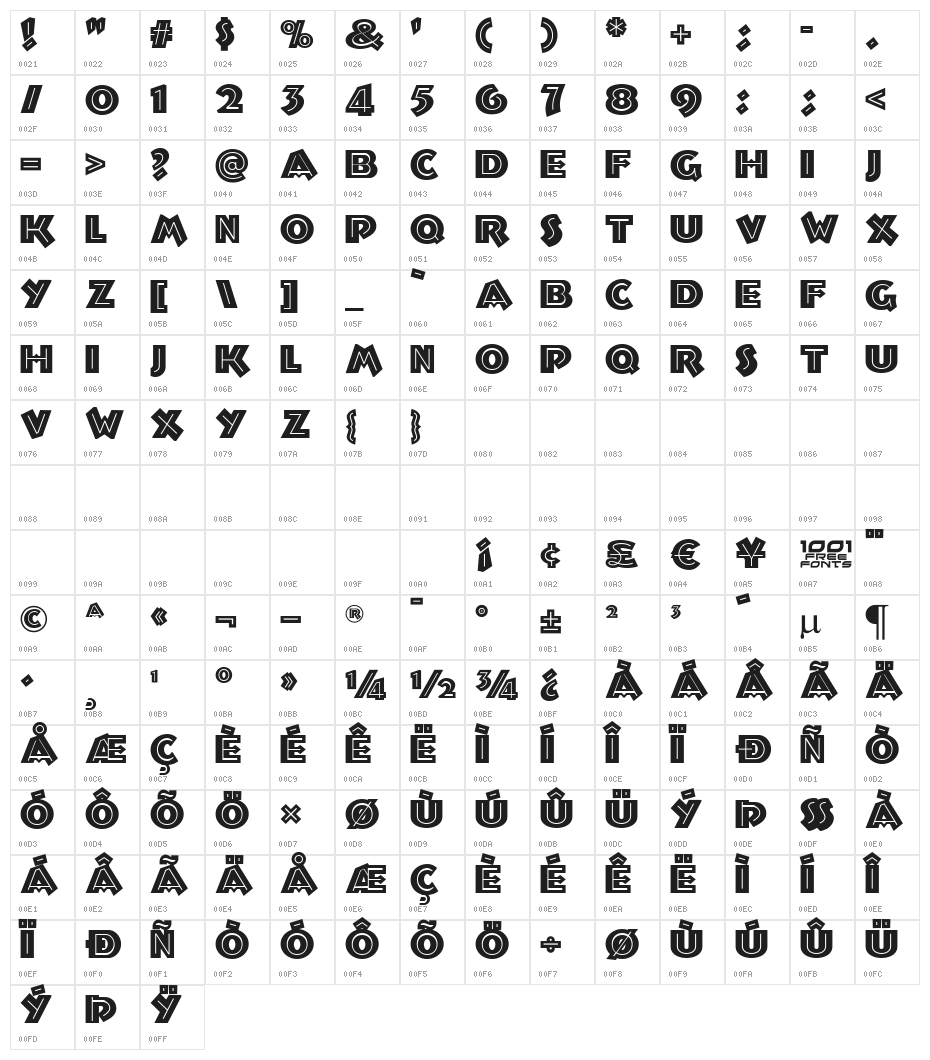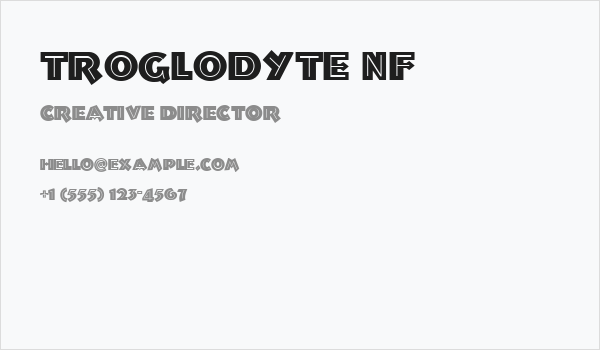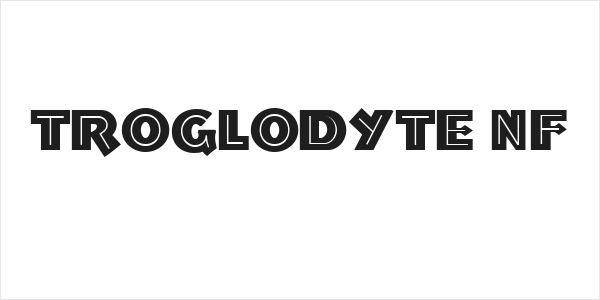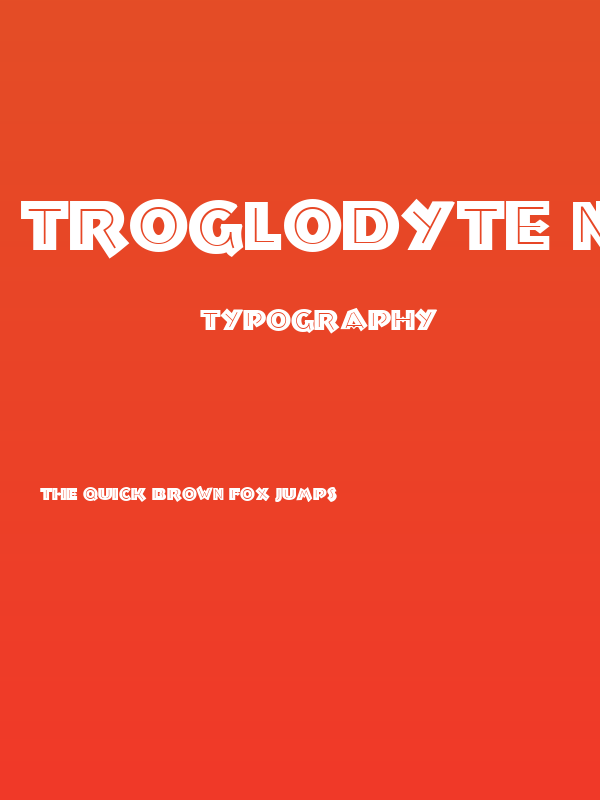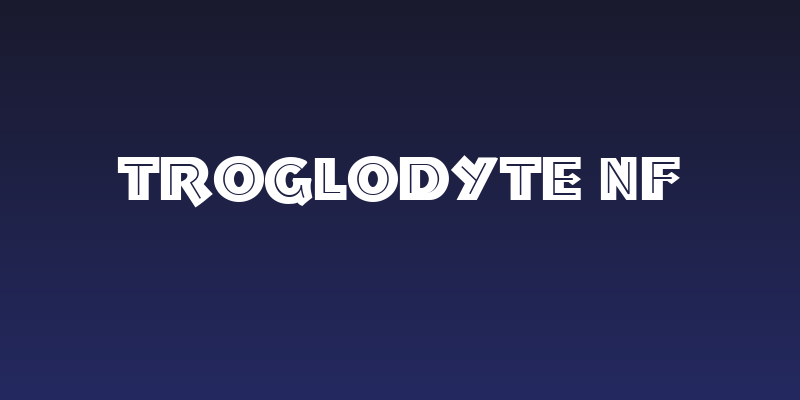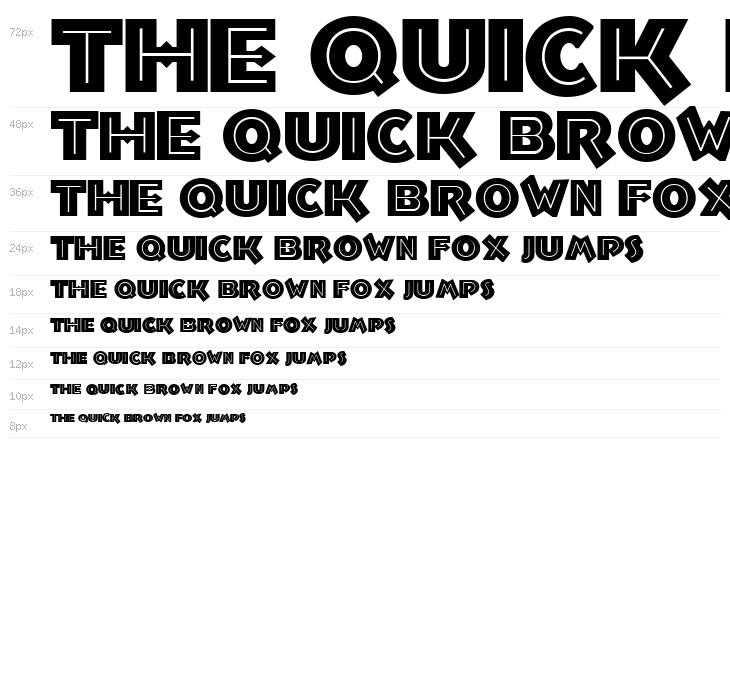
Troglodyte NF Font
Troglodyte NF Description
This font features a bold, geometric design with a strong emphasis on angular shapes and sharp edges. The characters are constructed with thick strokes and a consistent weight, giving them a robust and impactful appearance. The style is reminiscent of retro or vintage aesthetics, with a playful yet assertive tone. The uppercase and lowercase letters maintain a uniform height, contributing to a cohesive and structured look. The numerals and special characters follow the same design principles, ensuring a harmonious overall appearance. The font's distinct style makes it suitable for attention-grabbing headlines and display purposes.
| Proposed Projects | Ideal for vintage-themed posters, logos, and branding materials that require a strong visual impact. |